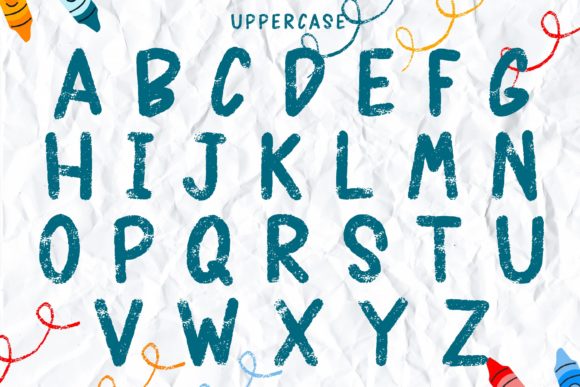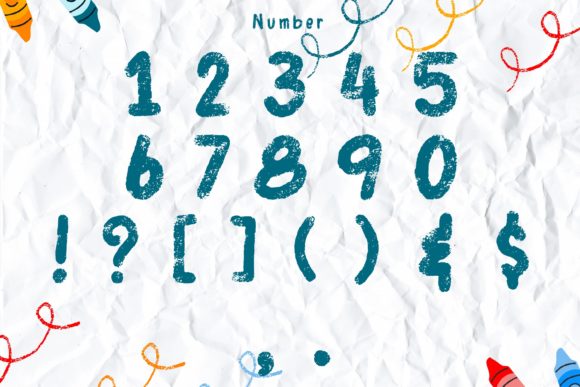
Crayon Font
Crayon is a brushed and chic display font. It is perfect for classrooms decorations, kids artwork, or even stickers designs. This font is easy to read, you can use it for name tag for student and a lot more.